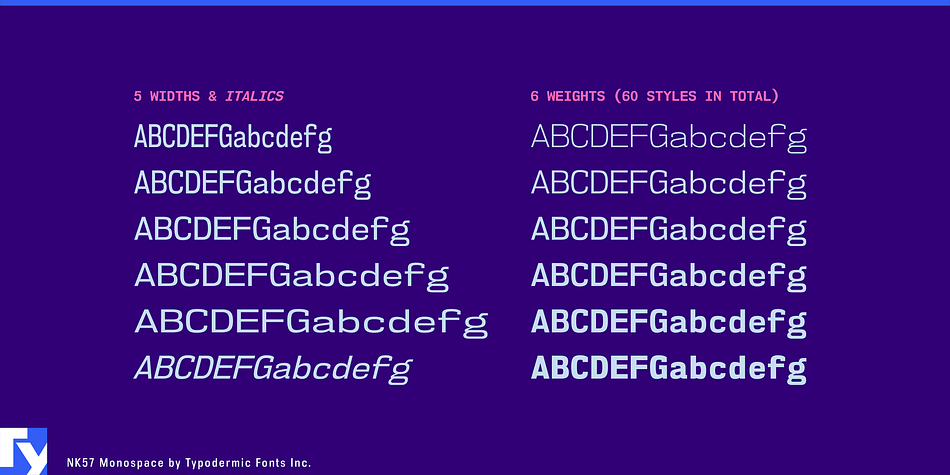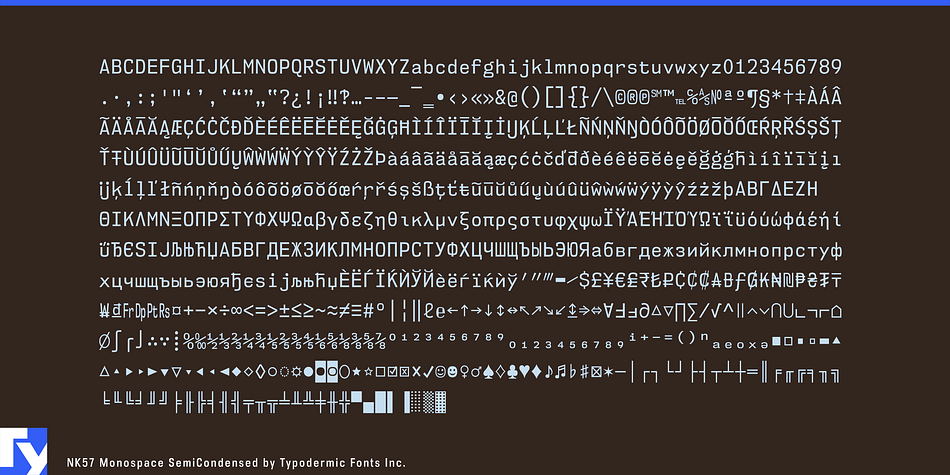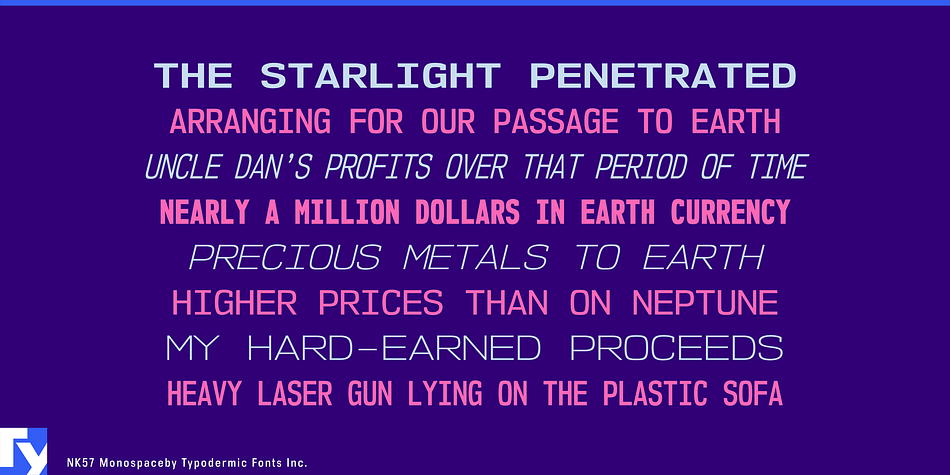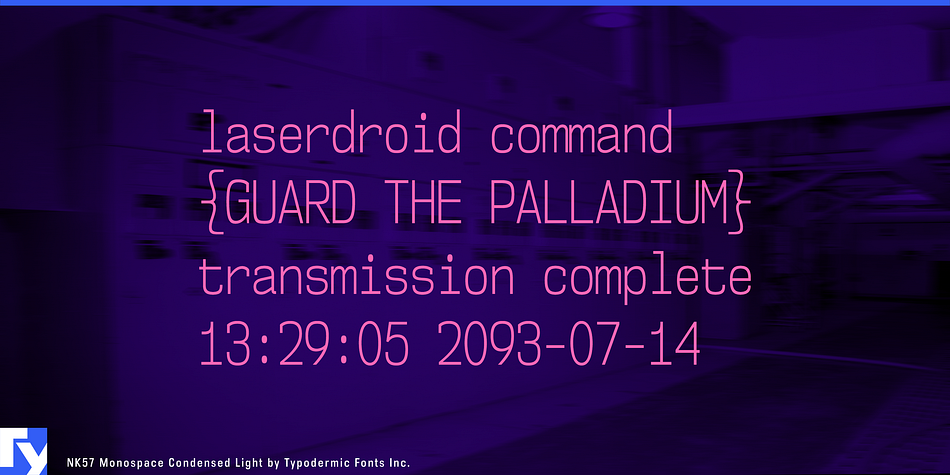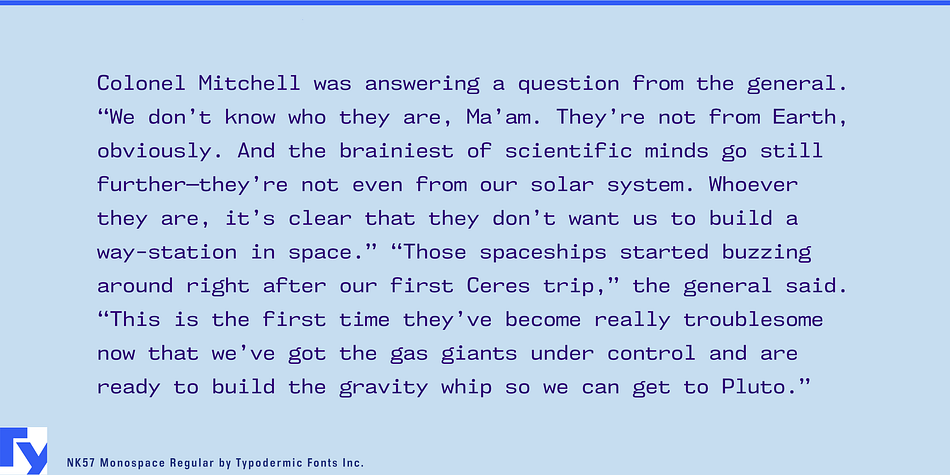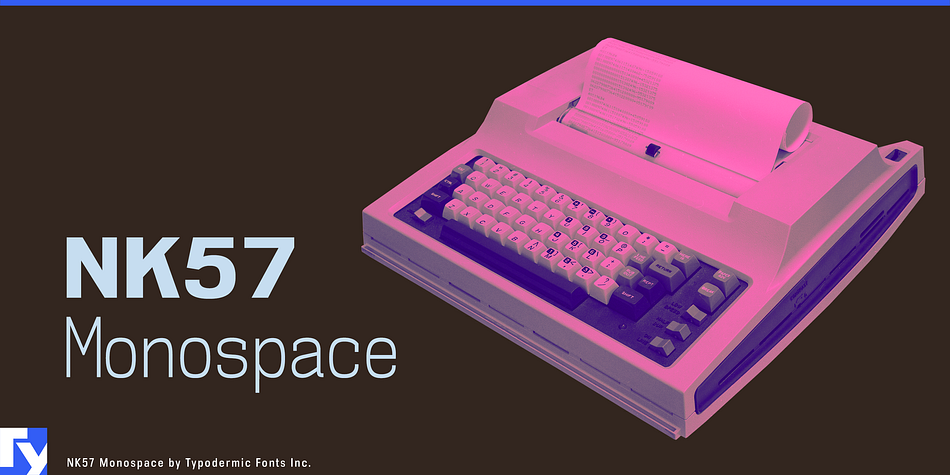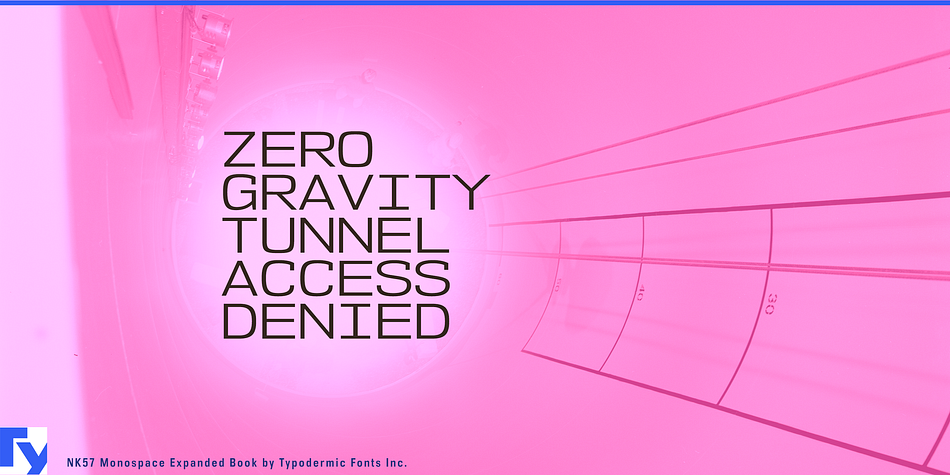
NK57 Monospace is a typewriter and display sans font family. This typeface has twelve styles and was published by Typodermic Fonts Inc.
NK57 Monospace is a 60-style programmer typeface. While many monospaced screen fonts are designed for low resolution use, NK57 Monospace was designed for high resolution screens with varying proportions.
The character set is decked out with European accents, Greek and Cyrillic. The usual symbols you’d expect in a programmer’s typeface are included as well as some harder-to-find but handy math symbols such as “diameter”.
When you change weight or use italics, the width won’t change. Condensed and Expanded styles make it easier to stretch an 80 column document across a wide monitor or squeeze it onto a narrow phone. Semi-Condensed and Semi-Expanded styles are more subtly squashed and stretched and can help make smoother transitions in responsive display scenarios, especially in concert with variable weights.